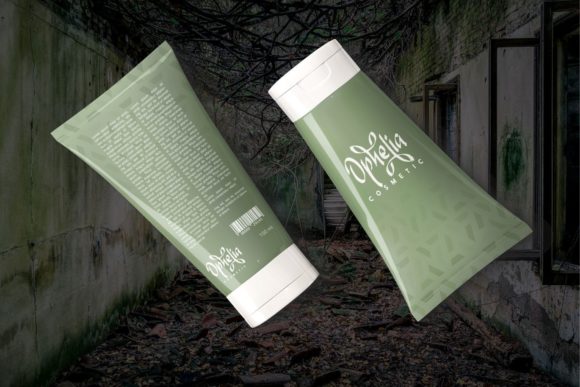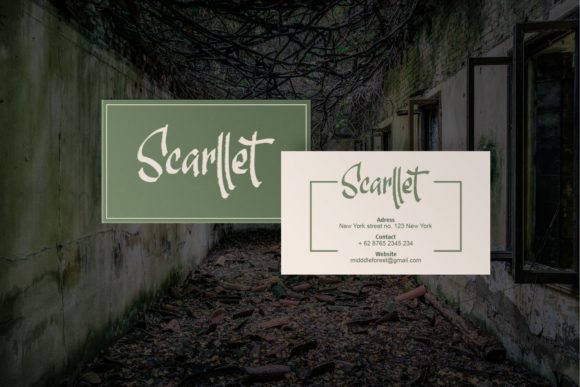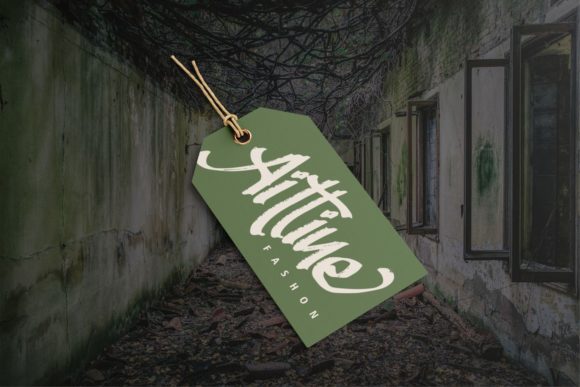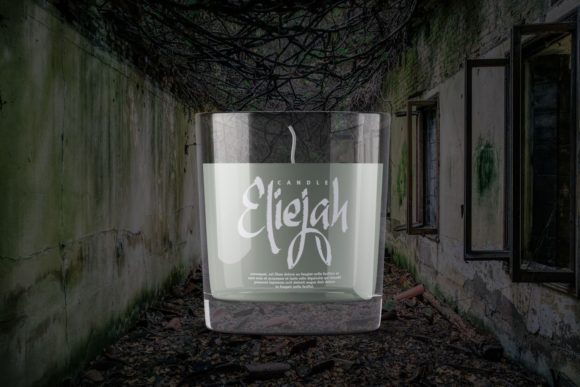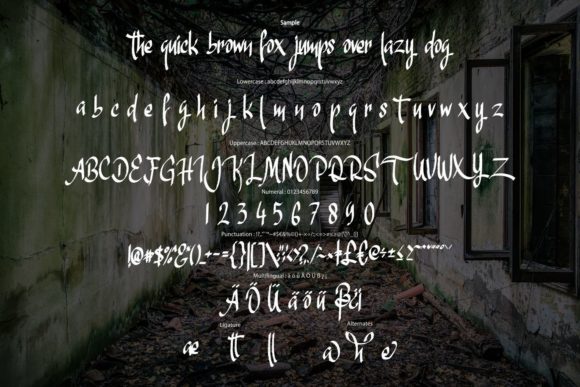
Introducing Amnesia Font: The Elegant and Charming Handwritten Font
Are you a designer or crafter looking for a font that adds a touch of elegance and charm to your designs? Look no further than Amnesia Font. This beautiful handwritten font is perfect for a variety of projects, from wedding invitations and greeting cards to logos and business cards.
What Makes Amnesia Font So Special?
Amnesia Font is a unique and stylish font that is sure to capture the attention of your audience. Its elegant and charming design makes it perfect for projects that require a personal and handwritten touch. Whether you’re designing a wedding invitation or a thank you card, Amnesia Font is sure to add a touch of sophistication and style.
Uses for Amnesia Font
Amnesia Font is a versatile font that can be used for a wide range of projects, including:
- Wedding invitations: Add a touch of elegance and romance to your wedding invitations with Amnesia Font.
- Thank you cards: Show your appreciation with a beautifully designed thank you card featuring Amnesia Font.
- Quotes: Add a touch of inspiration and motivation to your quotes with Amnesia Font.
- Greeting cards: Create beautiful and unique greeting cards for any occasion with Amnesia Font.
- Logos: Add a personal and handwritten touch to your logo with Amnesia Font.
- Business cards: Stand out from the crowd with a beautifully designed business card featuring Amnesia Font.
Why Designers and Crafters Love Amnesia Font
Designers and crafters love Amnesia Font for its unique and stylish design. Its elegant and charming appearance makes it perfect for projects that require a personal touch. With Amnesia Font, you can add a touch of sophistication and style to your designs, making them stand out from the crowd.
Tips for Using Amnesia Font
Here are a few tips for using Amnesia Font in your designs:
- Pair it with other fonts: Amnesia Font looks great when paired with other fonts, such as serif or sans-serif fonts.
- Use it for headings: Amnesia Font is perfect for headings and titles, adding a touch of elegance and style to your designs.
- Experiment with colors: Amnesia Font looks great in a variety of colors, from bold and bright to soft and pastel.
In conclusion, Amnesia Font is a beautiful and elegant handwritten font that is perfect for designers and crafters. Its unique and stylish design makes it perfect for a wide range of projects, from wedding invitations and greeting cards to logos and business cards. With Amnesia Font, you can add a touch of sophistication and style to your designs, making them stand out from the crowd.